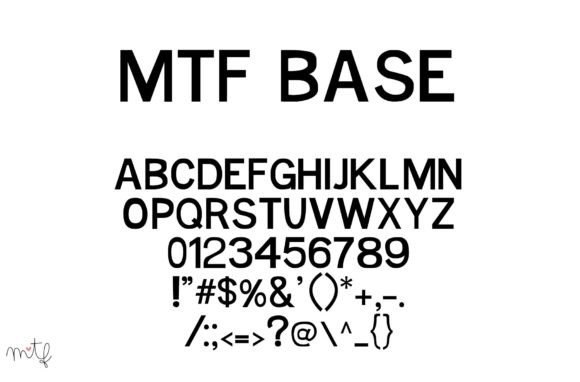
**Unleash Your Inner Storyteller with Base Trio: The Font That Transforms Your Words into Magical Journeys**
In the realm of typography, where words take flight and imagination soars, there exists a font that transcends the mundane and unlocks a world of captivating stories. Allow us to introduce you to Base Trio, a magnificent trio of fonts that will ignite your creativity and leave an everlasting imprint on your designs.
**Sans Serif: The Epitome of Sophistication and Grace**
For moments that demand elegance and an air of authority, the sans serif font in the Base Trio is your perfect companion. Its clean lines and minimalist aesthetic lend a touch of sophistication to any project, making it an ideal choice for professional documents, sleek presentations, and website designs that exude confidence.
**Decorative: Where Playfulness Meets Imagination**
When your heart yearns for a touch of whimsy and a burst of creativity, embrace the decorative font of Base Trio. Its graceful curves and intricate details will transport you to a world of enchantment, inviting you to craft designs that spark joy and ignite the imagination. Perfect for personal branding, whimsical invitations, and social media posts that demand attention, this font will add a layer of unforgettable charm to your creations.
**A Creative Force Inspired by Nature**
The Base Trio font was born from the mind of Miss Tiina, an artist whose passion for nature shines through in every stroke and curve. Inspired by the organic beauty of leaves and the gentle flow of streams, this font embodies the essence of harmony and balance.
**Benefits that Go Beyond Aesthetics**
Beyond its captivating beauty, Base Trio offers a wealth of benefits that will enhance your design experience:
* **Effortless Readability:** The sans serif font is designed with optimal legibility in mind, ensuring that your words flow seamlessly across the page, inviting readers to immerse themselves in your stories.
* **Endless Versatility:** Whether you're crafting a formal report or a playful social media post, the fonts in Base Trio seamlessly adapt to your creative vision, providing endless possibilities for self-expression.
* **Timeless Appeal:** This trio of fonts transcends fleeting trends, embodying a timeless elegance that will continue to captivate audiences for years to come.
**A Font for Every Occasion**
With its diverse range of styles, Base Trio empowers you to craft designs that resonate with your audience:
* **Captivating Headlines:** Boldly announce your presence with the decorative font, creating headlines that demand attention and set the stage for an unforgettable experience.
* **Engaging Body Copy:** The sans serif font brings clarity and flow to your written content, ensuring that your words resonate with readers and leave a lasting impact.
* **Unforgettable Branding:** Establish a strong and recognizable brand identity with the unique and eye-catching fonts in Base Trio.